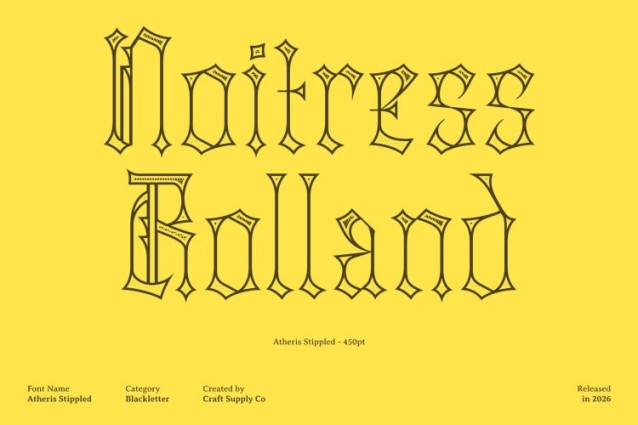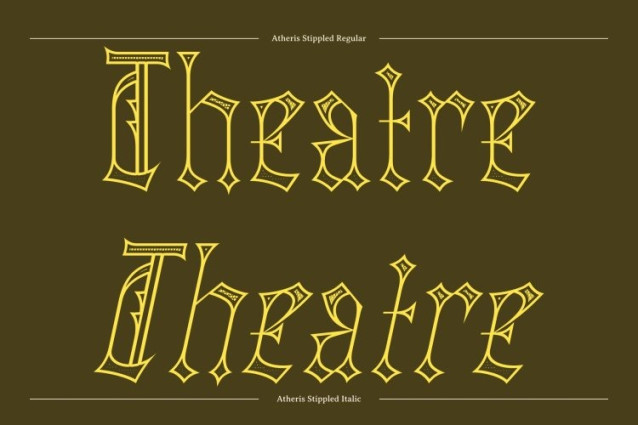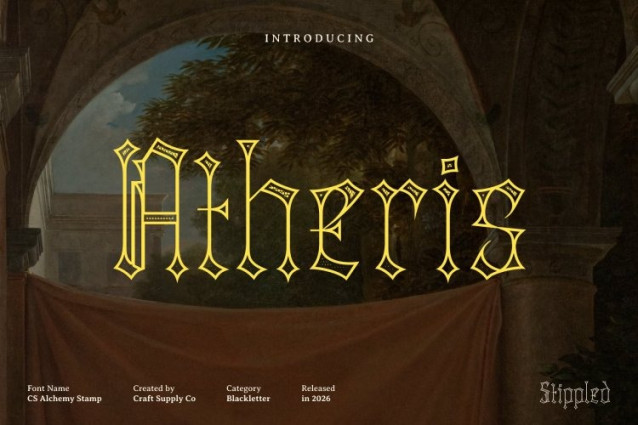
Atheris Stippled Font
Atheris Stippled Font This is a contemporary blackletter display font that reinterprets classic broken letterforms with a bold, experimental approach. While honoring the sharp, dramatic structure of traditional blackletter, the stippled style introduces a dense dotwork texture reminiscent of ink stippling and hand-drawn illustration. This adds a distinctive artistic and vintage feel, giving the font depth, character, and a handcrafted aesthetic.
Bold Structure with Contemporary Balance
Featuring strong, angular letterforms and refined proportions, this font delivers the authoritative presence of blackletter fonts while maintaining modern readability. Its balanced spacing and subtle geometric detailing create a fresh, innovative look that bridges historical gravitas with contemporary design sensibilities.
Gothic-Modern and Retro-Futuristic Vibes
This font evokes a striking mood that spans eras combining gothic tradition, modern minimalism, and retro-futuristic edge. The stippled texture enhances its hand-crafted, artistic quality, making it perfect for designs that require both dramatic flair and visual sophistication.
Perfect for Bold, Character-Driven Projects
Designed for attention-grabbing headlines, expressive logos, music branding, fashion campaigns, event posters, and avant-garde editorial layouts, this font brings intensity, personality, and originality to every project. Its fusion of historic blackletter heritage, modern innovation, and textured artistry makes it a statement font with lasting impact.